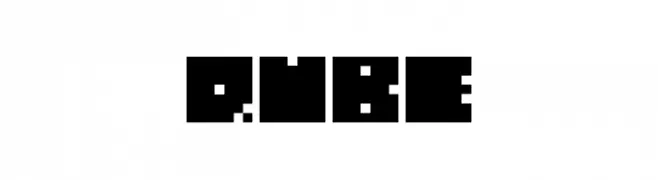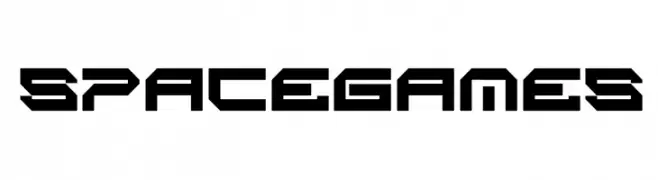
A bold, pixelated font with a retro digital aesthetic.
A bold, pixelated font with a retro digital style.
A bold, pixelated font with a retro digital aesthetic.
A futuristic, geometric font with bold, rounded letterforms and tight spacing.
A bold, pixelated font with a geometric, retro digital style.
A decorative, pixelated font with a retro, mosaic-like design.
A pixelated, retro-style font with a blocky, digital appearance.
A bold, pixelated font with a retro digital aesthetic.
A bold, geometric font with a digital, pixelated style.
A pixelated, retro-style font with a blocky, digital appearance.
A bold, pixelated font with a retro digital aesthetic.
A bold, futuristic font with a geometric and technological design.
A bold, geometric font with a modern, digital-inspired design.
A bold, pixelated font with a retro, digital aesthetic.
A bold, pixelated font with a retro digital aesthetic.